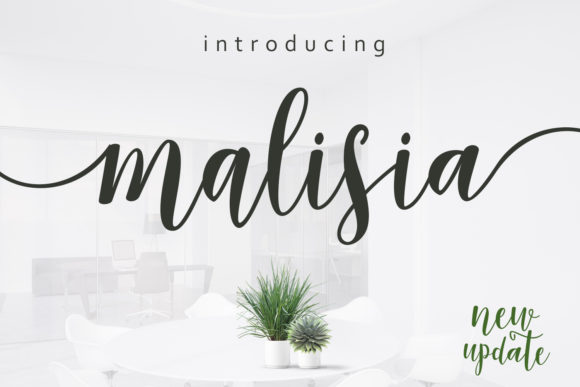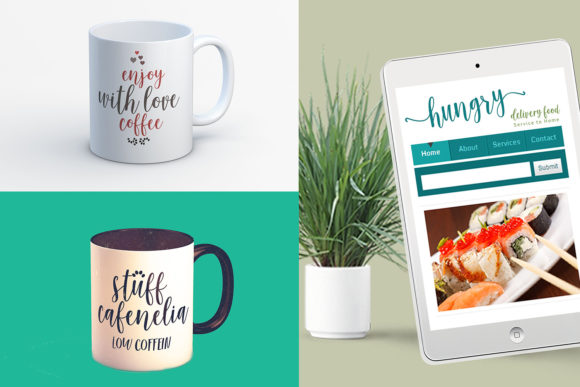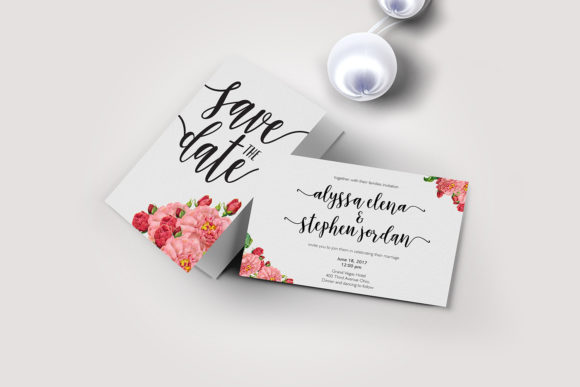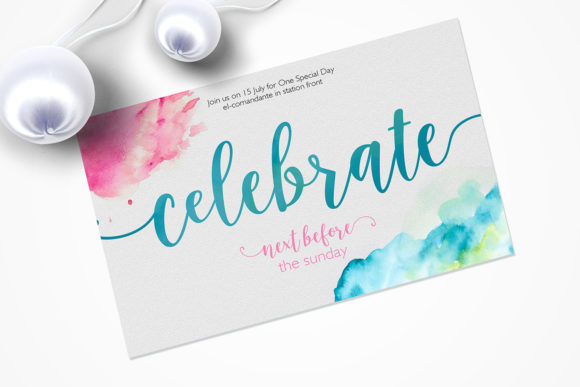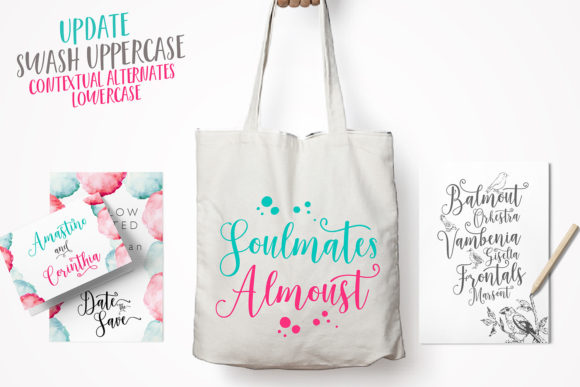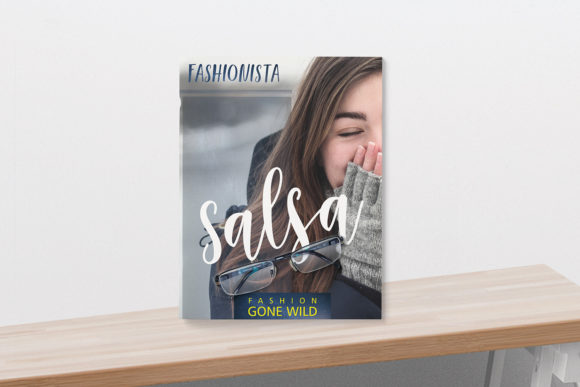
About Malisia Script Font
Malisia is a modern and stylish script font that feels equally trendy, natural, and gentle. Use it to highlight your most creative wedding designs, party invitations, business ideas, marketing materials, posters, etc.